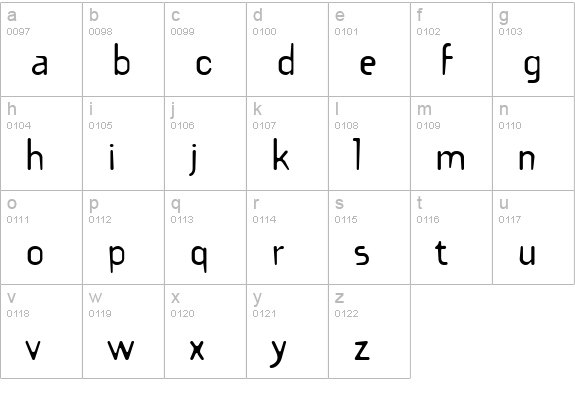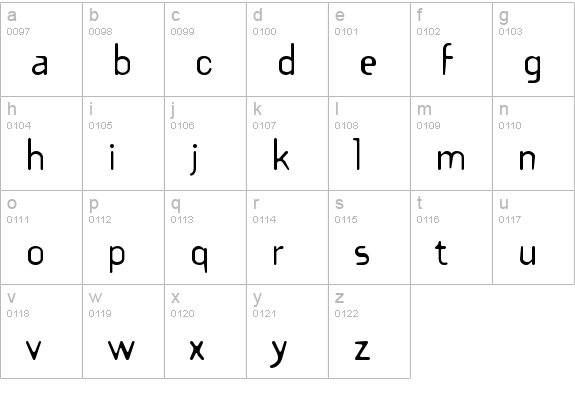
TemplateGothic Regular Font Details
TemplateGothic Regular is the standard, neutral variant in the TemplateGothic typeface family \xE2\x80\x94 well suited to general body text, paragraphs, and standard typographic work.
TemplateGothic Regular is a modern and versatile font that exudes an air of sophistication and professionalism. With its clean lines and geometric shapes, this font is perfect for a wide range of design projects, from logos and headlines to body text and signage. The beauty of TemplateGothic Regular lies in its simplicity. Its balanced proportions and legible letterforms make it easy on the eyes and ensure readability across various mediums. Whether it's used for print or digital applications, this font maintains its clarity and impact. One of the greatest advantages of TemplateGothic Regular is that it is available for free. You can easily download this font from FontsMarket.com, a trusted source for high-quality fonts. This means that designers, creatives, and enthusiasts can freely access and utilize TemplateGothic Regular for both personal and commercial projects. With its free availability, TemplateGothic Regular allows you to experiment and explore without any financial constraints. Whether you're a seasoned designer or just starting out, this font offers endless possibilities for creating eye-catching and visually engaging designs. So why wait? Download TemplateGothic Regular today and elevate your design projects with its timeless elegance, versatility, and the freedom to create without limitations.